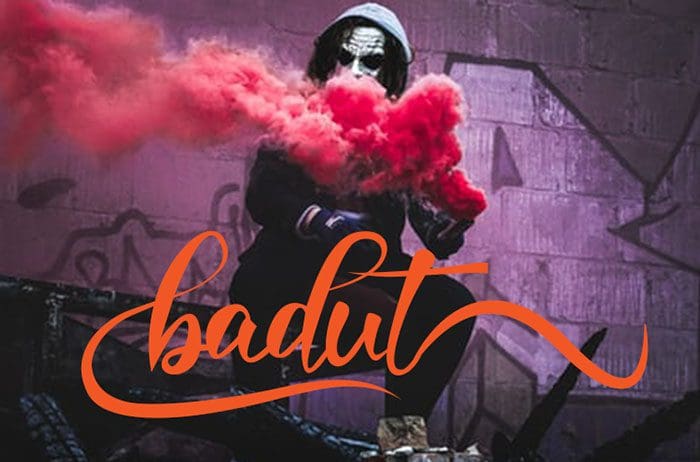
Free Badut is a unique calligraphy font. Clean and a little bit quirky, this font is the perfect fit for all of your logos, branding, social media, and crafty DIY projects. Designed this font by Inermedia Studio. You can also search more freeĀ Calligraphy Fonts.